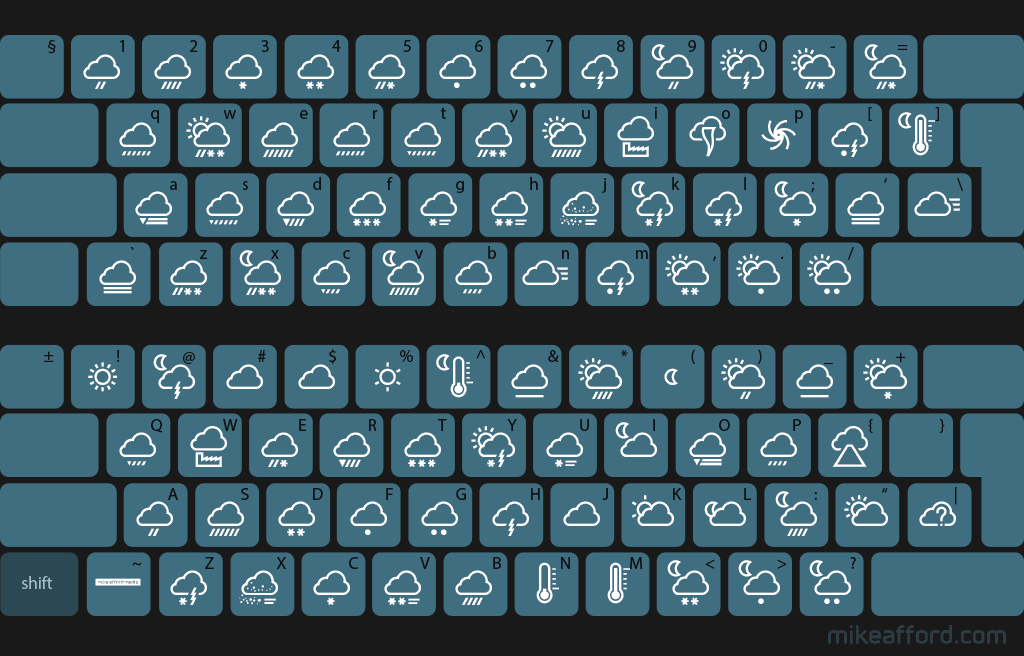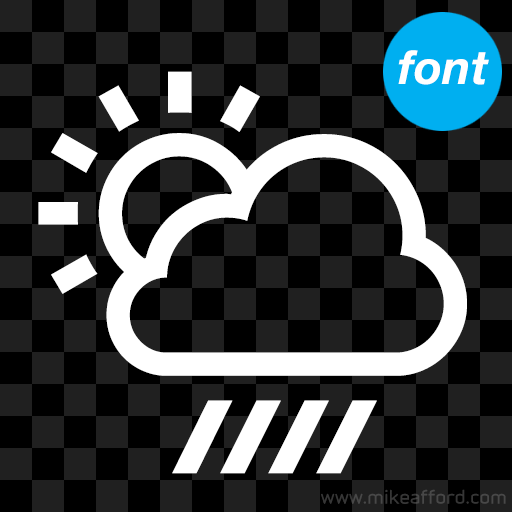
Weather Icon FONT : MS-01
weather icons
92 glyph desktop font
The ‘Monochrome Set’ weather icons in font format. Stylish single colour icons. 92 glyphs. TrueType, OpenType and web-font kit.
This is the font version of the ‘Monochrome Set’ Weather Symbol Set. With 92 weather conditions, this icon set is one of the most comprehensive sets available and this new font version allows you to incorporate the symbols in your own projects more easily than ever before. Ideal for mobile, web and print applications.
All of my 92 icon sets come with a full range of weather types including many extra conditions (blowing snow, lightning + hail, volcanic ash, smoke, tornado, freezing fog and many more) making them ideal for use with most popular data providers.
weather icon font MS-01 low resolution preview image
The font contains every single icon from the original set, mapped in order, from 1. sunny (= !) all the way to 91. volcanic ash (= {). The pack comes with a glyph guide listing the weather condition, Unicode value, and corresponding keyboard key. I’ve included a separate guide below for World Weather Online users which lists the WWO code and the corresponding font character for day and night. It’s also downloadable as a text file on the right.
keyboard showing font layout
Weather icon glyph guide
! ! sunny
" sunny intervals
# # white cloud
$ $ black low cloud
% % hazy sun
& & mist
' fog
( ( clear sky (night)
) ) light rain showers
* * heavy rain showers
+ + light snow showers
, , heavy snow showers
- sleet showers
. . light hail showers
/ / heavy hail showers
0 0 thundery showers
1 1 cloudy with light rain
2 2 cloudy with heavy rain
3 3 cloudy with light snow
4 4 cloudy with heavy snow
5 5 cloudy with sleet
6 6 cloudy with light hail
7 7 cloudy with heavy hail
8 8 thunderstorms
9 9 light rain showers (night)
: : heavy rain showers (night)
&#59; ; light snow showers (night)
&#60; < heavy snow showers (night)
&#61; = sleet showers (night)
&#62; > light hail showers (night)
&#63; ? heavy hail showers (night)
&#64; @ thundery showers (night)
&#65; A cloudy with light rain (night)
&#66; B cloudy with heavy rain (night)
&#67; C cloudy with light snow (night)
&#68; D cloudy with heavy snow (night)
&#69; E cloudy with sleet (night)
&#70; F cloudy with light hail (night)
&#71; G cloudy with heavy hail (night)
&#72; H thunderstorms (night)
&#73; I partly cloudy (night)
&#74; J cloudy (night)
&#75; K mostly cloudy
&#76; L mostly cloudy (night)
&#77; M hot
&#78; N cold
&#79; O freezing fog
&#80; P drizzle
&#81; Q freezing drizzle
&#82; R freezing rain
&#83; S extreme rain
&#84; T extreme snow
&#85; U blowing snow
&#86; V blizzard
&#87; W smoke
&#88; X dust / sand
&#89; Y thundery snow showers
&#90; Z thunderstorms with snow
&#91; [ thunderstorms with hail
&#92; \ windy
&#93; ] hot (night)
&#94; ^ cold (night)
&#95; _ mist (night)
&#96; ` fog (night)
&#97; a freezing fog (night)
&#98; b drizzle (night)
&#99; c freezing drizzle (night)
&#100; d freezing rain (night)
&#101; e extreme rain (night)
&#102; f extreme snow (night)
&#103; g blowing snow (night)
&#104; h blizzard (night)
&#105; i smoke (night)
&#106; j dust / sand (night)
&#107; k thundery snow showers (night)
&#108; l thunderstorms with snow (night)
&#109; m thunderstorms with hail (night)
&#110; n windy (night)
&#111; o tornado
&#112; p tropical storm / hurricane
&#113; q heavy drizzle
&#114; r heavy drizzle (night)
&#115; s heavy freezing drizzle
&#116; t heavy freezing drizzle (night)
&#117; u extreme rain showers
&#118; v extreme rain showers (night)
&#119; w heavy sleet showers
&#120; x heavy_sleet showers (night)
&#121; y heavy sleet
&#122; z heavy sleet (night)
&#123; { volcanic_ash
&#124; | unknown / unavailable